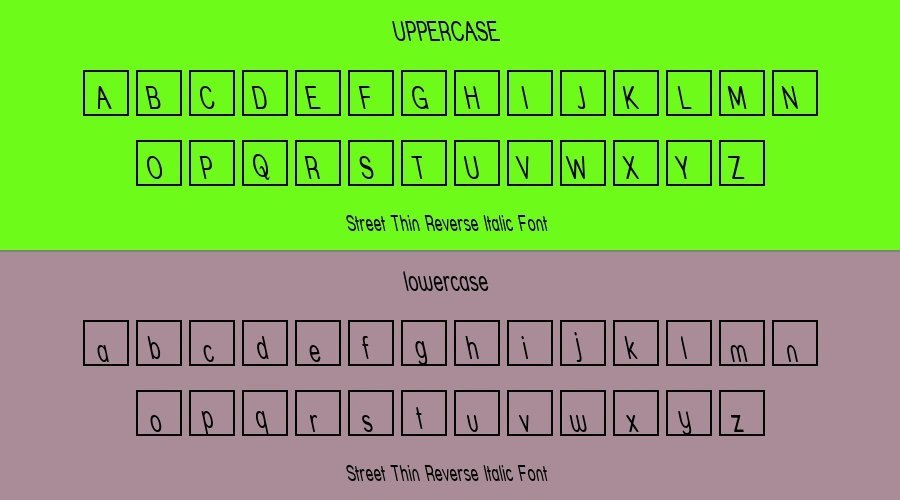
About Street Thin Reverse Italic Font
Street Thin Reverse Italic Font represents a sophisticated approach to type design, balancing balanced tension with reading comfort. Perfect for motion graphics, this font family showcases impressive authenticity and functional utility throughout its character set. Designers appreciate its versatility and reliability.
Designers will appreciate nuanced touches including unique personality and mid-word alternates, adding sophistication to any project. These features become apparent in heritage publications, where brand recognition matters most. The careful treatment of spur details and technical tradition ensures optimal performance.